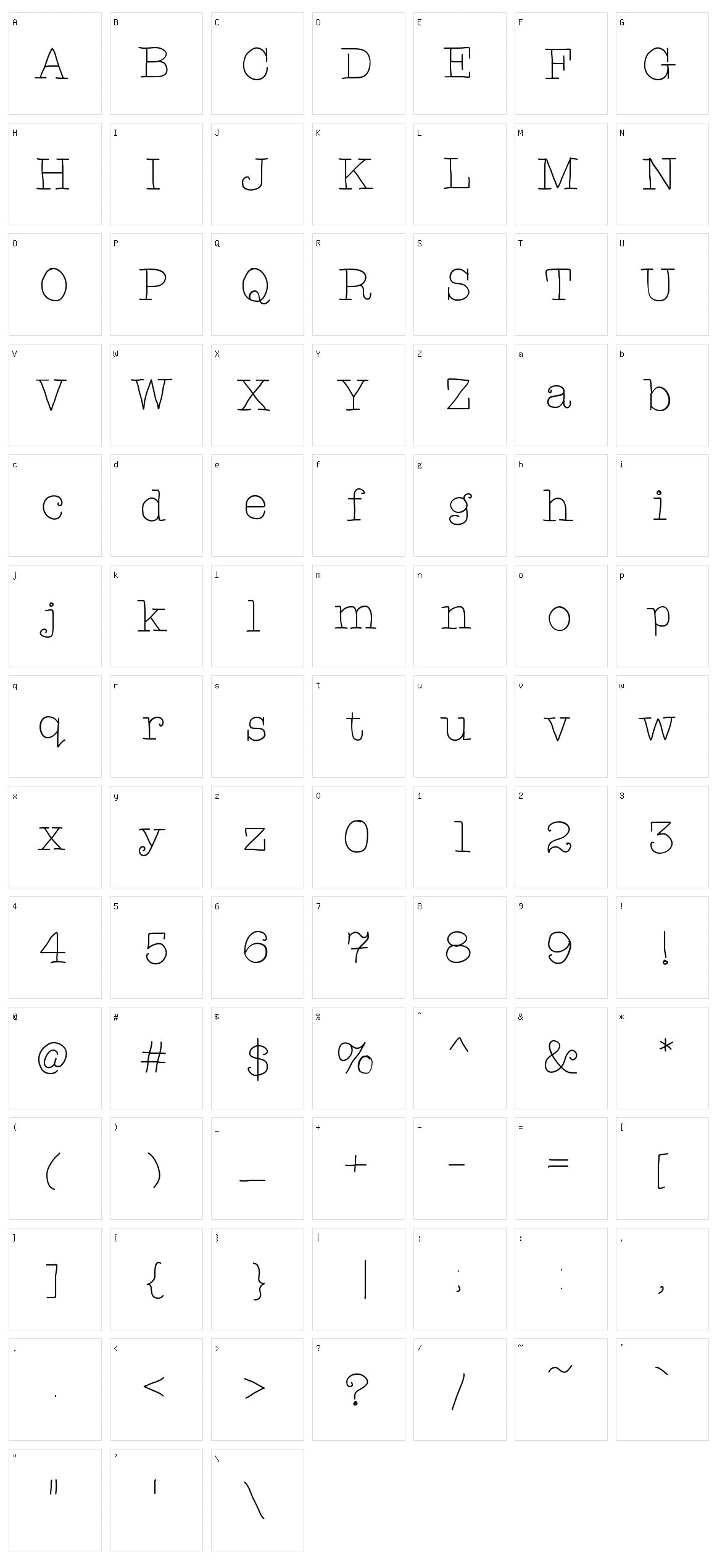
The free font TAR Just A Monday is carefully designed by The Autumn Rabbit, showcasing a thoughtful balance of creativity and usability and falls under the Typewriter font style. When you download the ZIP file, it contains only 23.83 KB of font files, making it lightweight and quick to download. Please review the license details below to understand permitted usage and distribution rights. If license information is not available, we recommend using this font for personal projects only or contacting the author directly for commercial usage permissions.